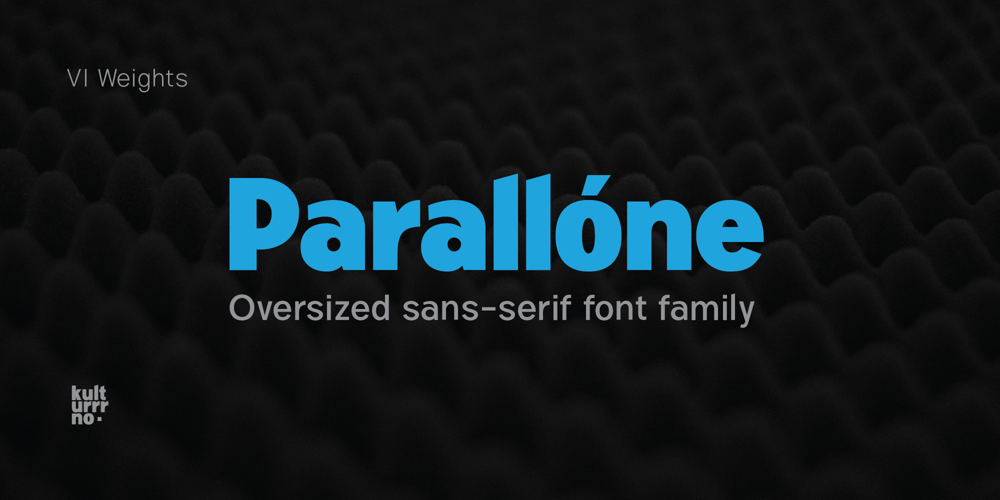
Parallone Font Family was designed by Ilyas Yunusov and published by Kulturrrno. Parallone contains 12 styles and family package options. The great sans-serif for heading:)This is the big update of my font Parallone created in 2018.I needed the compact but not monospaced font with oversized caps. And here it is) Extended latin set Friendly glyphs design Stylistic alternates + ligatures 6 weights + italics